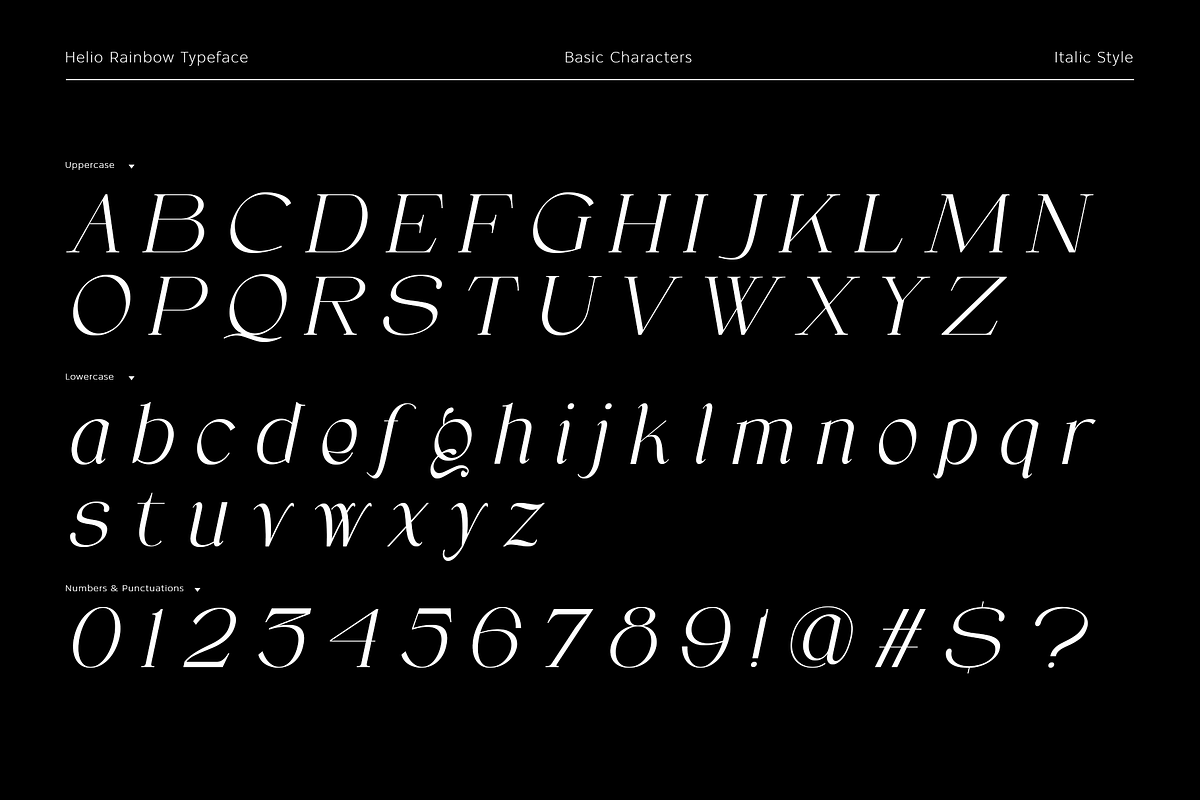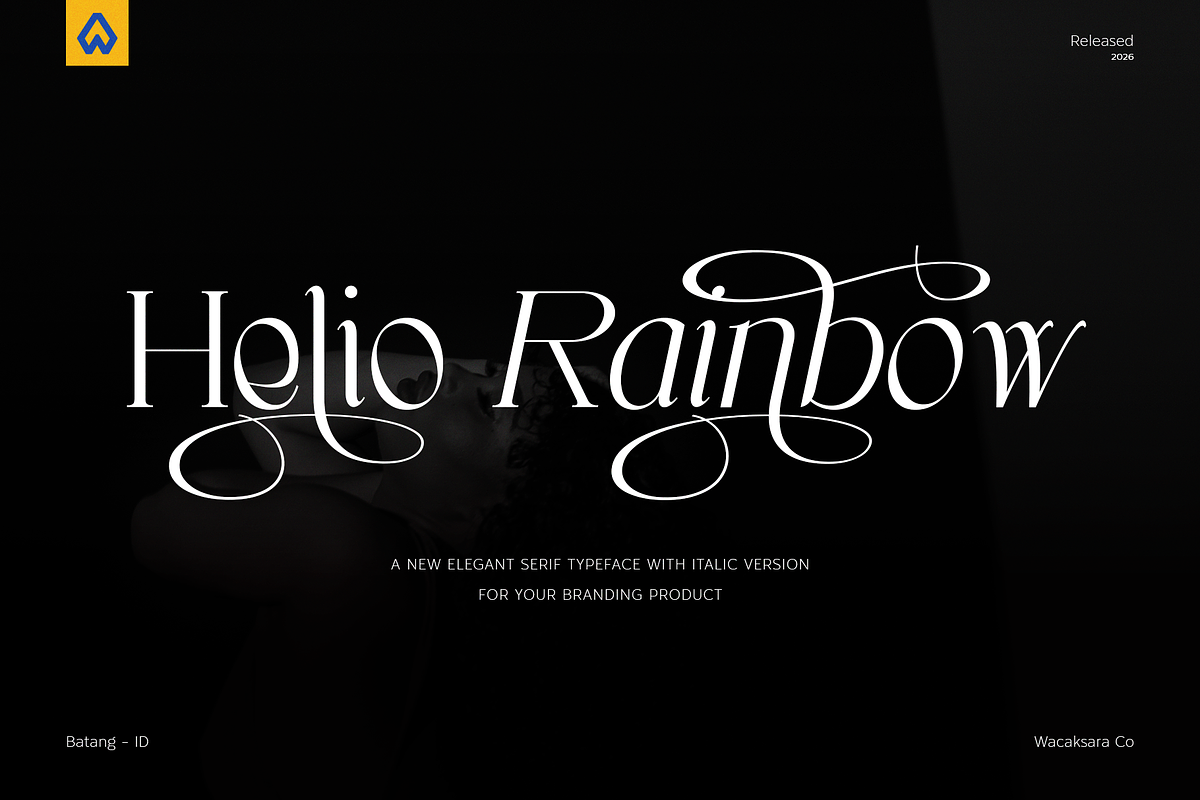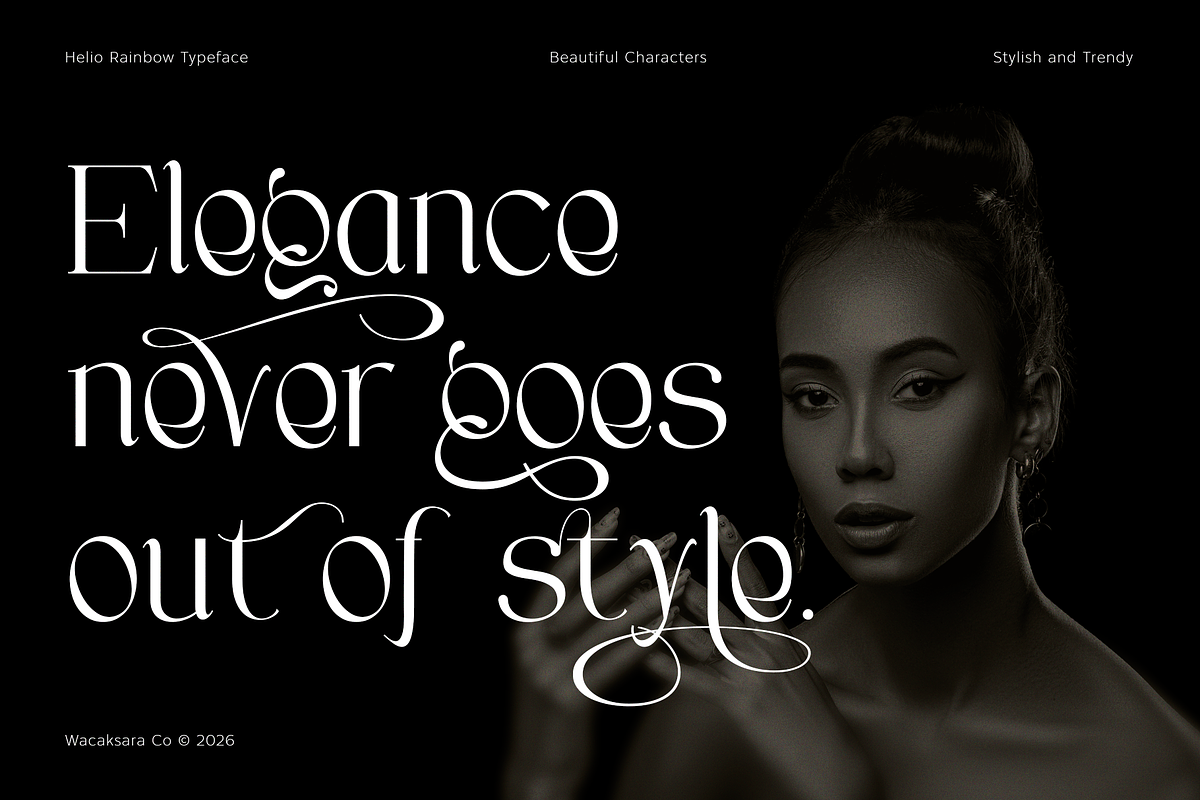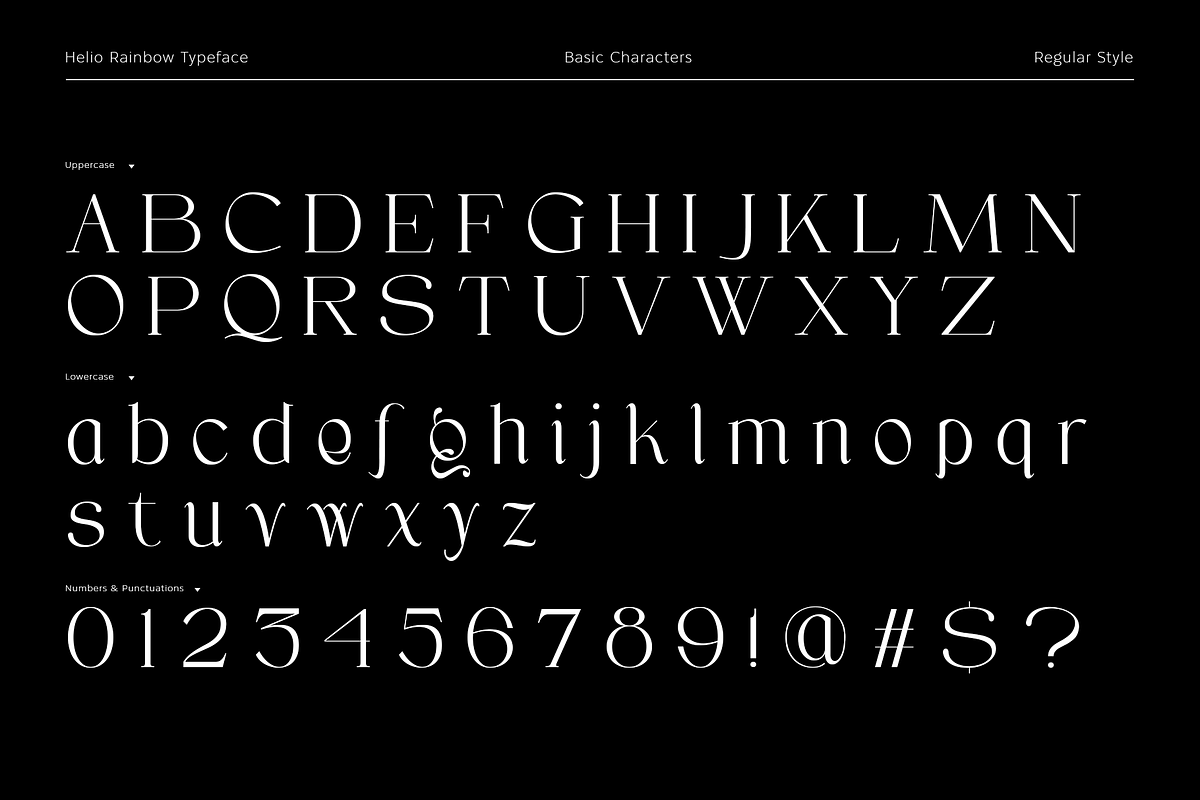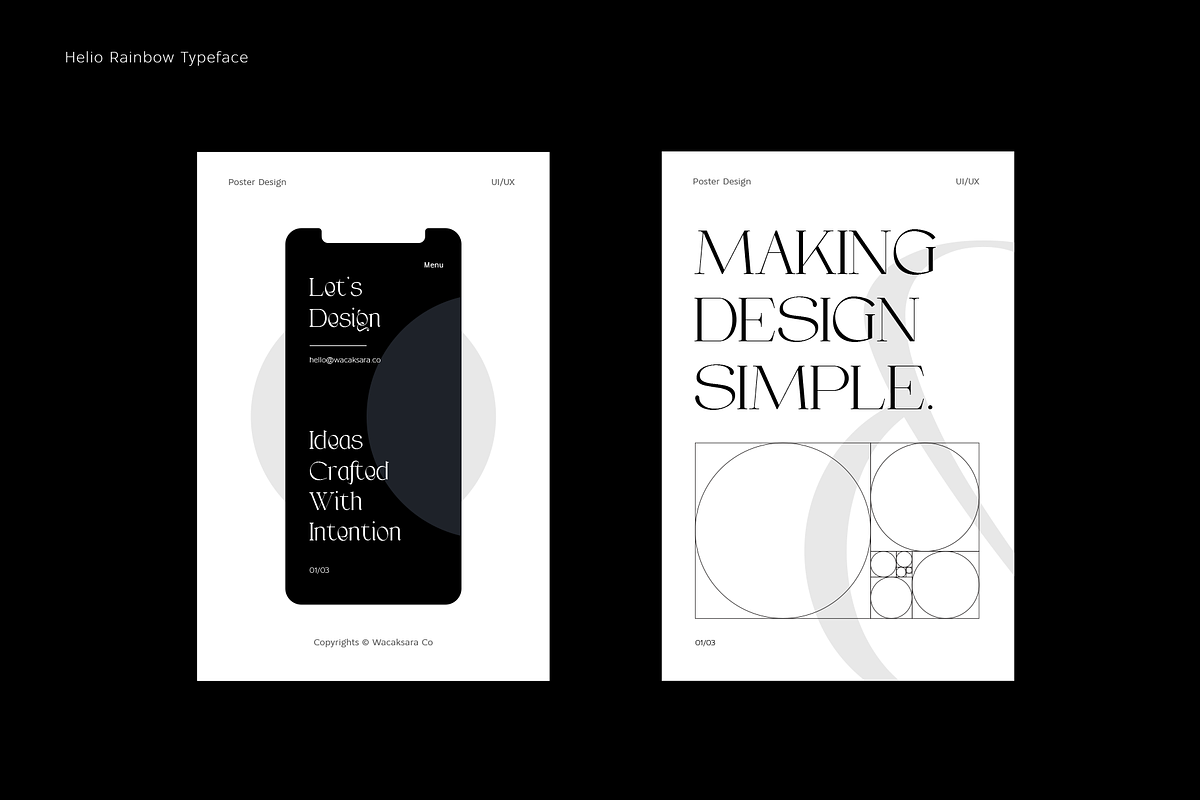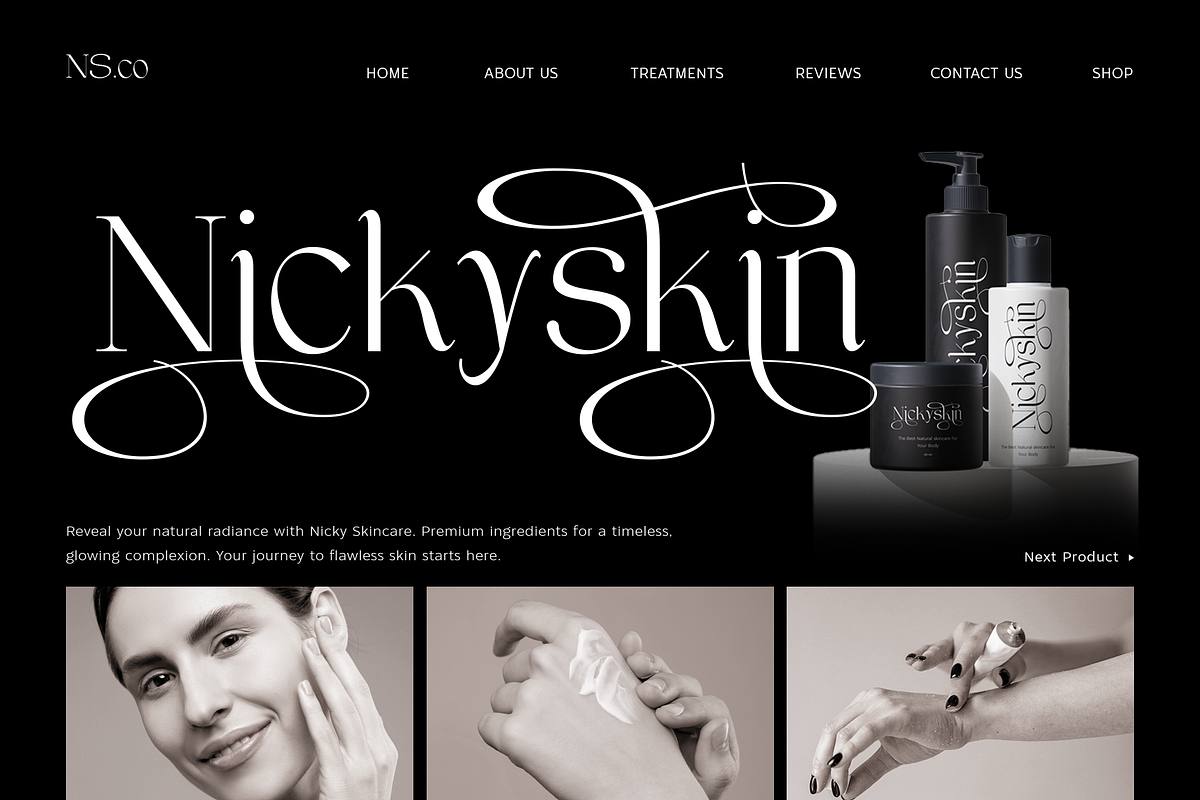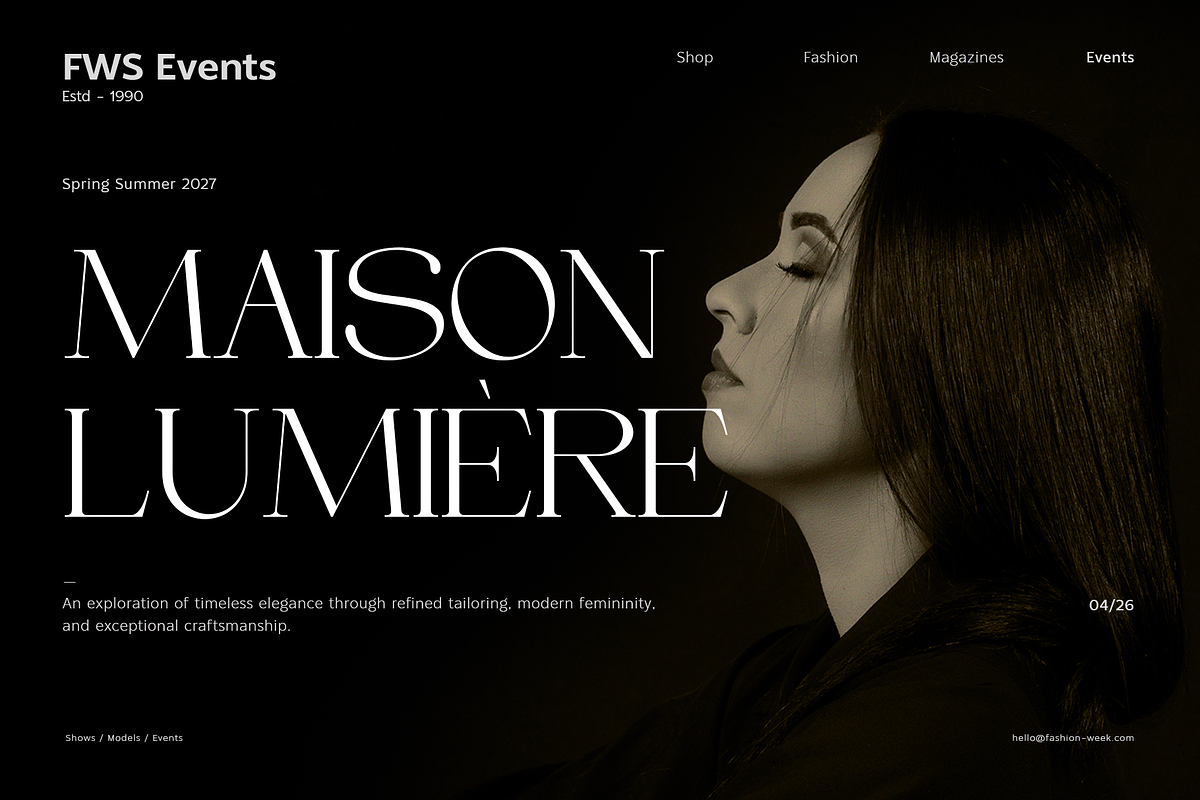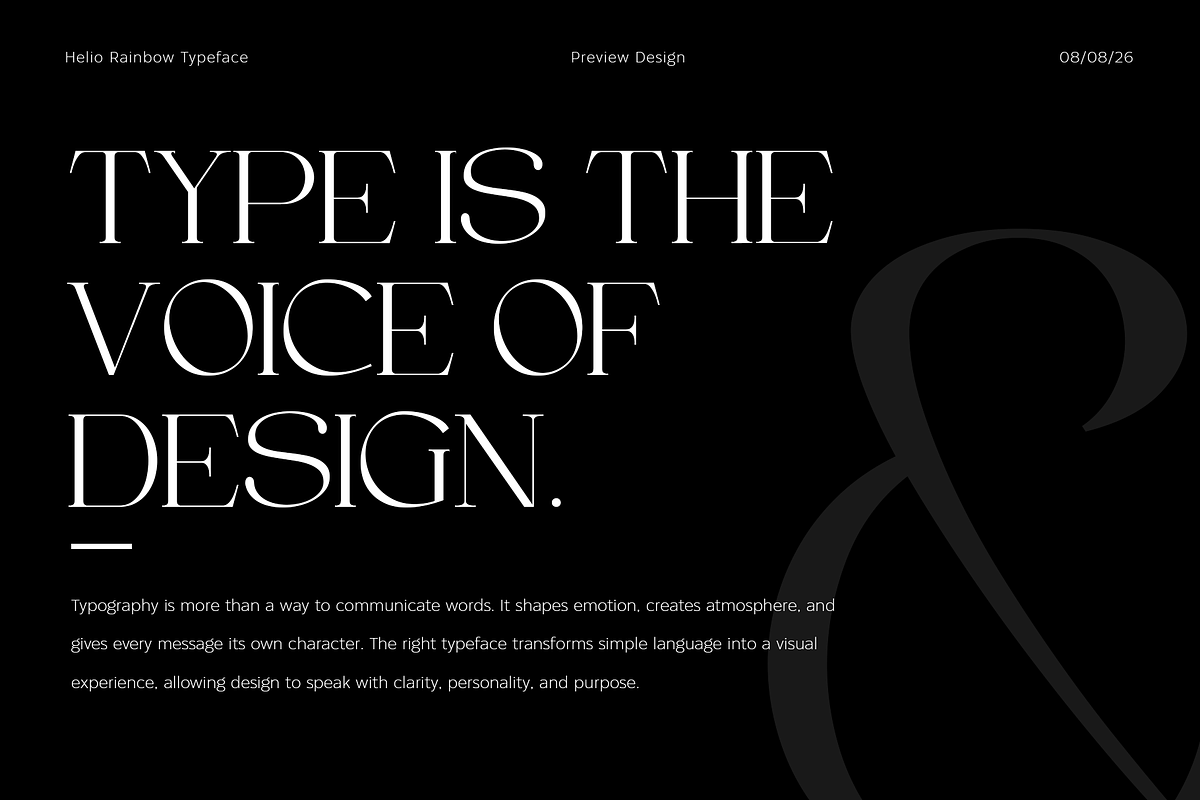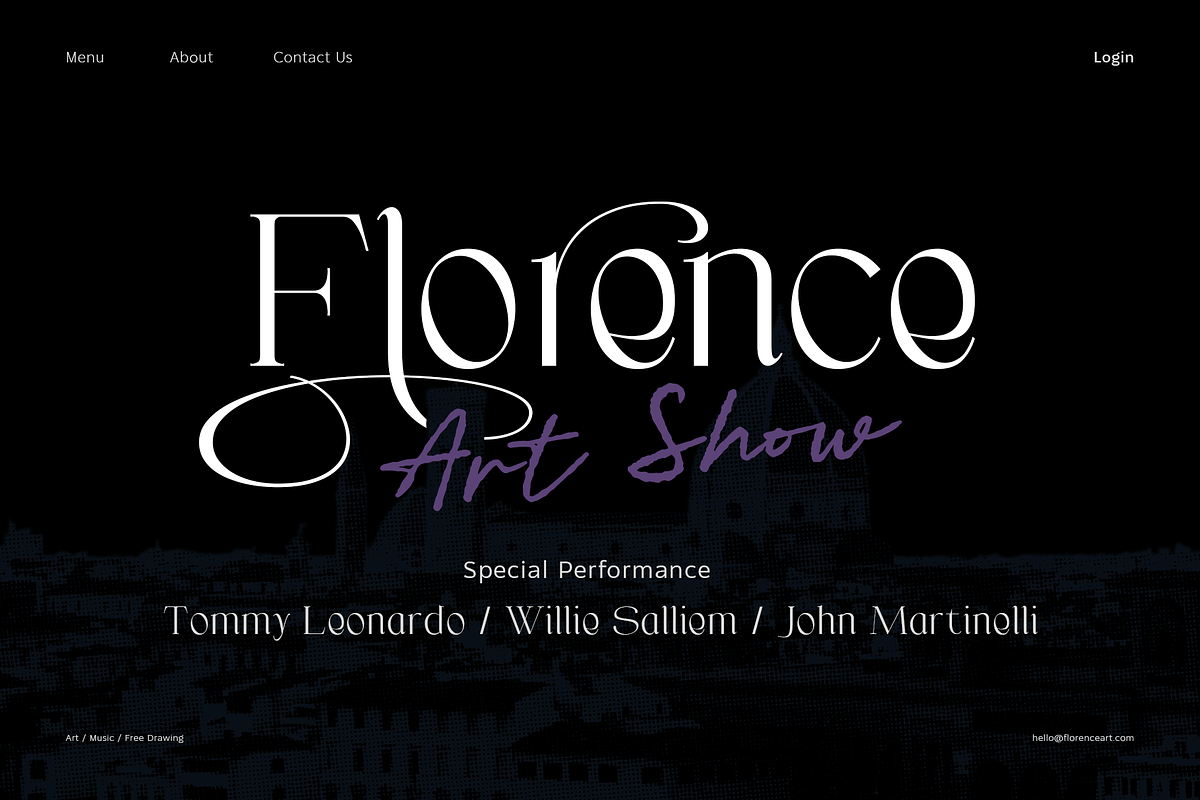
Helio Rainbow - Elegant Serif Font
Helio Rainbow is an elegant serif display font created for fashion, luxury branding, editorial design, and sophisticated creative projects.
Featuring high-contrast letterforms, graceful curves, delicate details, and expressive lowercase characters, Helio Rainbow brings a refined and feminine character to your designs.
The font includes Regular and Italic styles, along with alternative characters that allow you to create more distinctive and expressive typography.
Lowercase
Numerals & Punctuations
Accents ( Multilingual Characters )
Opentype feature : ligatures, and stylistic sets.